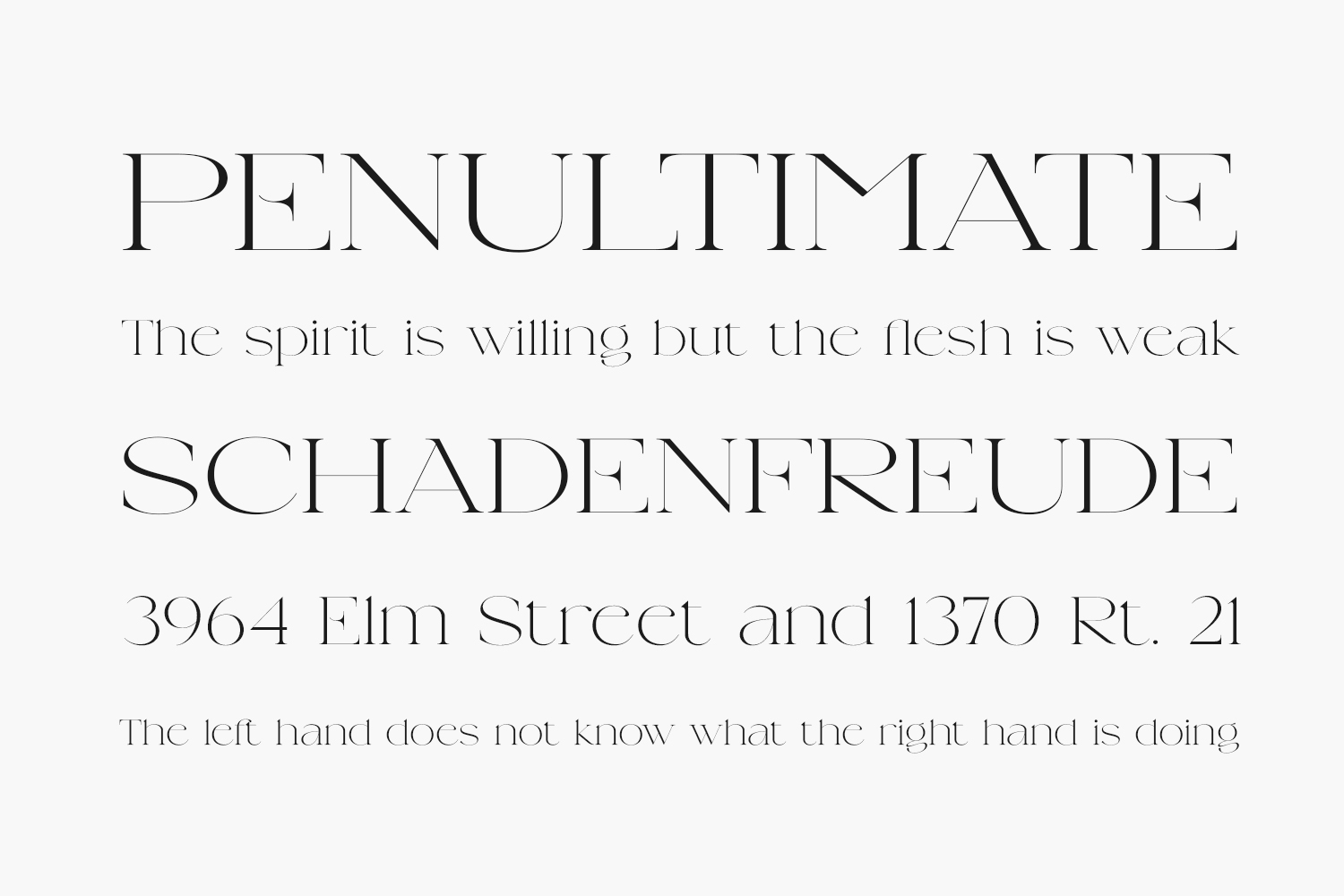
Bargemo Free Font embodies a sophisticated and graceful serif font. With its remarkable blend of style and contemporary appeal, this font holds the power to enhance all your design endeavors. Bargemo Free Font is free for personal use only. Please purchase the full version for commercial use.
Designed by BrandSemut